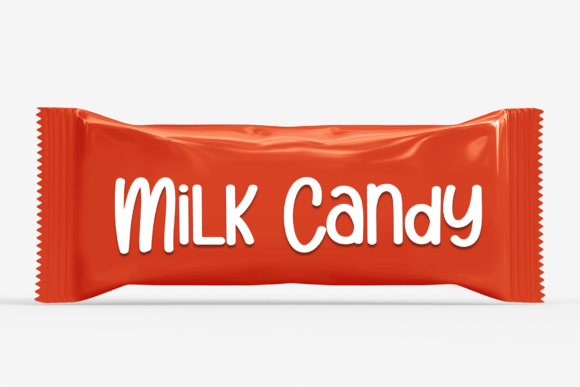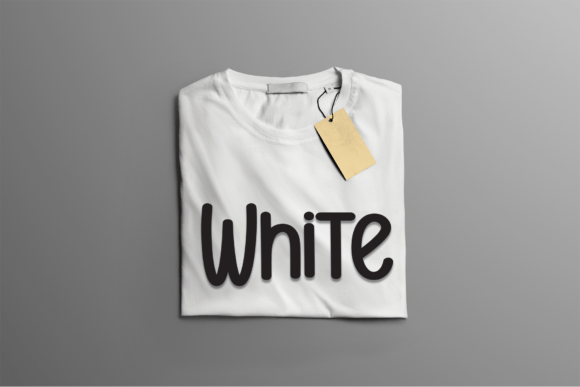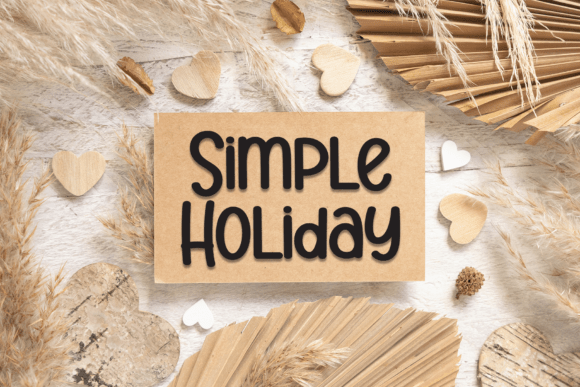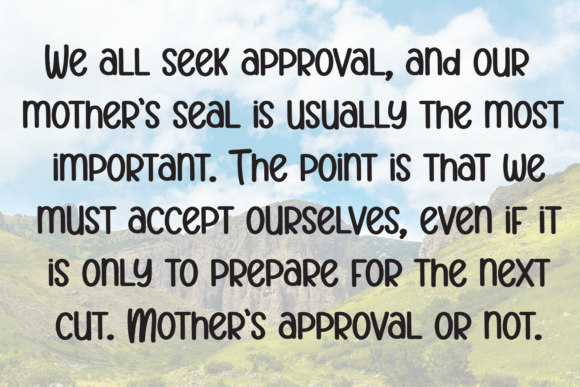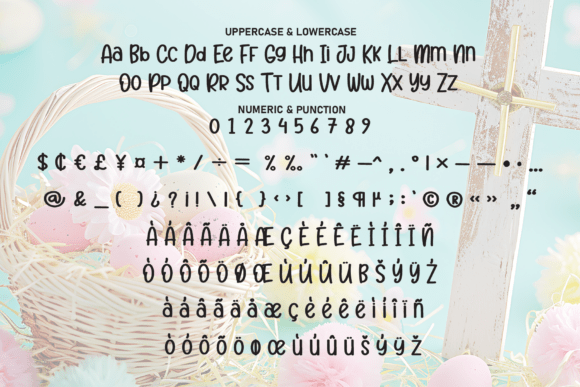
Easter Wednesday Font: Adding a Touch of Whimsy to Your Designs
Are you looking for a font that can bring a personal and heartfelt touch to your designs? Look no further than the Easter Wednesday Font. This beautiful handwritten display font is perfect for adding charm and character to any project, from quotes and greeting cards to branding and logos.
A Font that Captures the Essence of Authentic Handwriting
The Easter Wednesday Font is designed to mimic the look and feel of authentic handwriting. With its playful strokes and casual flow, it captures the imperfections and uniqueness of handwritten text. This font is perfect for designers and crafters who want to add a personal touch to their work. Whether you’re creating a modern logo or a handmade card, the Easter Wednesday Font is sure to bring a smile to your audience’s face.
The Easter Wednesday Font is versatile and can be used for a wide range of projects. Here are some ideas to get you started:
• Quotes and Posters: Add a touch of whimsy to your inspirational quotes and posters with the Easter Wednesday Font.
• Greeting Cards: Create handmade greeting cards that are truly special with this beautiful font.
• Branding and Logos: Use the Easter Wednesday Font to create a unique and memorable brand identity.
• Kids’ Projects: This font is perfect for kids’ projects, such as party invitations, coloring pages, and educational materials.
Why Choose the Easter Wednesday Font?
• Unique and Playful: This font is truly one-of-a-kind, with a playful and whimsical feel that’s sure to stand out.
• Easy to Read: Despite its playful nature, the Easter Wednesday Font is easy to read, making it perfect for use in a variety of contexts.
• Versatile: This font can be used for a wide range of projects, from formal to informal.
• High-Quality: The Easter Wednesday Font is a high-quality font that is designed to look great in any context.
The Easter Wednesday Font is a beautiful and versatile font that is perfect for adding a personal and heartfelt touch to your designs. With its playful strokes and casual flow, it captures the essence of authentic handwriting. Whether you’re a designer or crafter, this font is sure to bring a touch of whimsy and charm to your work. So why not give it a try and see the difference it can make?